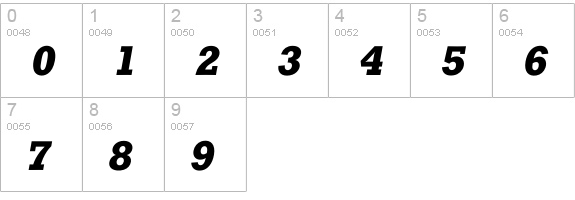
Istafford Bold is a strong, high-contrast variant in the Istafford typeface family \xE2\x80\x94 well suited to headlines, attention-grabbing titles, and strong calls-to-action.
iStafford Bold font is a striking and versatile typeface that exudes confidence and sophistication. Its bold and commanding letterforms make it perfect for headlines, titles, logos, and other attention-grabbing designs. With its clean lines and crisp edges, iStafford Bold font demands attention and instantly communicates a sense of professionalism and modernity. Whether used in print or digital media, this font is sure to make a bold statement. What sets iStafford Bold font apart is not only its aesthetics but also its accessibility. It is freely available to download at FontsMarket.com, making it an invaluable resource for designers, students, and anyone in need of a high-quality font without breaking the bank. This font's versatility is evident in its ability to complement a variety of design styles. From sleek and minimalistic layouts to bold and vibrant compositions, iStafford Bold font effortlessly enhances the visual impact of any project. The legibility of iStafford Bold font ensures that your message will be conveyed clearly and effectively. Its wide range of characters and language support make it suitable for international projects, allowing you to reach a global audience with ease. Whether you're designing a logo for a cutting-edge tech startup, creating eye-catching promotional materials, or crafting a modern website, iStafford Bold font is the perfect choice to elevate your design to the next level. In summary, iStafford Bold font is a powerful and versatile typeface that combines boldness with elegance. Its free availability at FontsMarket.com makes it a must-have for any designer looking to create impactful and professional designs. Download iStafford Bold font today and unleash your creativity with this exceptional typographic tool.